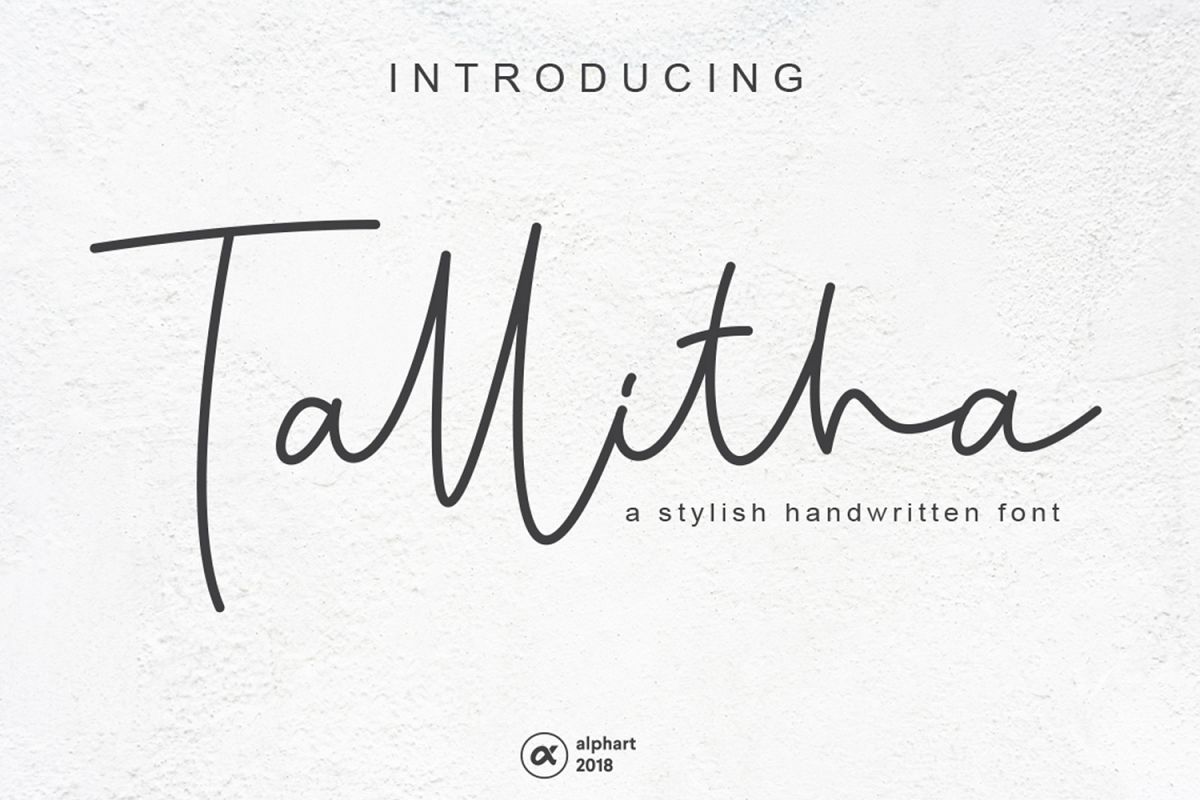
Tallitha a stylish handwritten font
Tallitha a stylish handwritten font - a new modern & fresh script with a handwritten and script style make this font looks elegant, natural, stylish and perfect for any awesome projects that need handwriting taste.
Tallitha would perfect for photography, watermark, social media posts, advertisements, logos & branding, invitation, product designs, label, stationery, wedding designs, product packaging, special events or anything that need handwriting taste.
Tallitha also includes full set of uppercase and lowercase letters, multilingual symbols, numerals, punctuation. The font has smooth wet ink texture, so would be perfect for all types of printing techniques+you can do embroidery, laser cut, gold foil etc.
• ligature
• alternate
• multi lingual